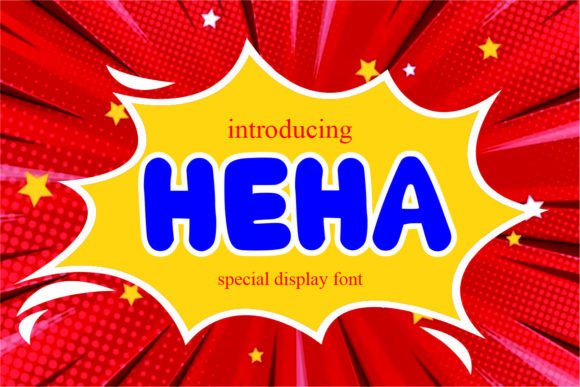
Get ready to infuse your designs with a touch of whimsy and charm with our exclusive Heha font, a masterpiece from the creative minds at Im.design.art. This display font family is not just a collection of letters; it's an expression of sheer joy and lightheartedness.
Heha's unique style is defined by its delightful curves, playful shapes, and distinct personality. Each letter dances onto the page, creating a visual symphony that captivates and enchants. The rounded edges evoke a sense of warmth and friendliness, inviting your audience into a world of magic and imagination.
Unleash your creativity with Heha's versatility. Whether you're crafting enchanting children's books, designing captivating toys and games, or adding a playful touch to unique projects, Heha is your perfect companion. Its charm knows no bounds, transforming ordinary designs into extraordinary expressions of creativity.
Step into a world of pure delight as you explore Heha's endless possibilities. Let your imagination soar as you create cheerful posters, vibrant social media graphics, and eye-catching logos that radiate positivity and joy. With Heha, every design becomes an irresistible invitation to play and explore.